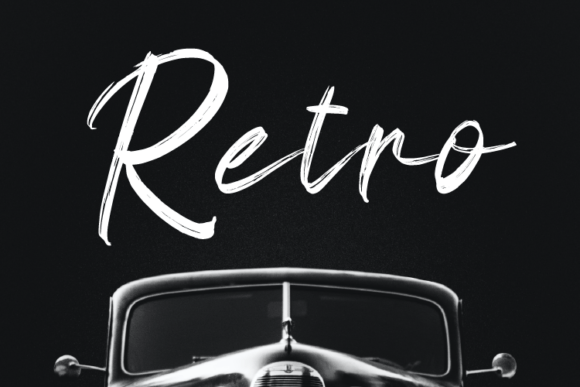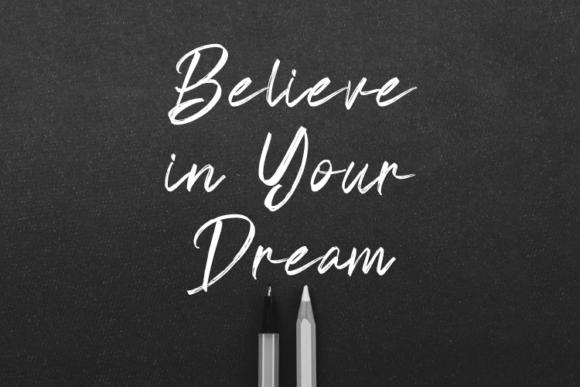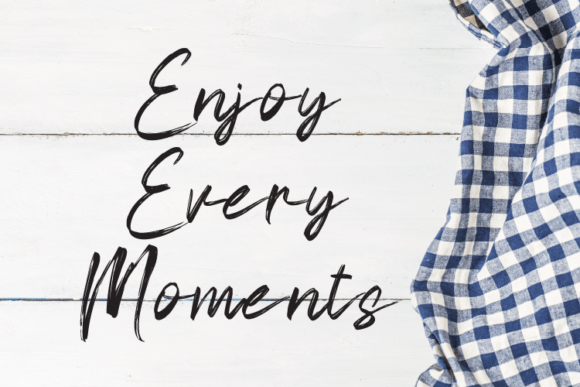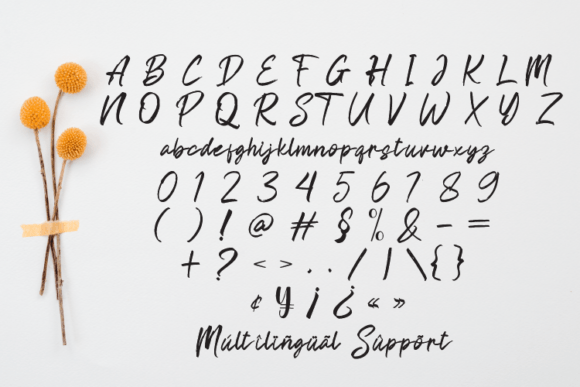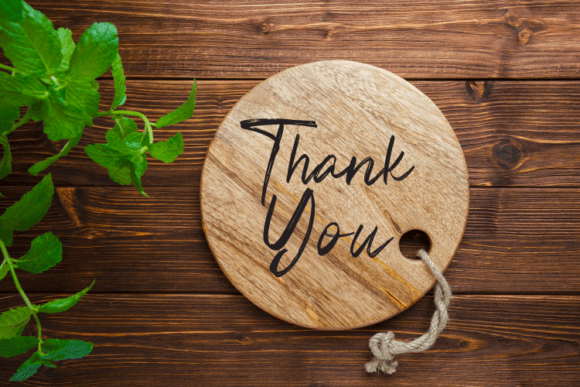
Introducing Brush Shine Font: Elevate Your Designs with a Personal Touch
In the world of design, fonts play a crucial role in conveying the message and aesthetic of a project. For crafters, designers, and artists, finding the perfect font can be a game-changer. If you’re looking for a font that adds a personal and realistic feel to your designs, look no further than Brush Shine Font. This brush script-style font is designed to bring a touch of trendiness and authenticity to your work, making it perfect for a wide range of projects.
What is Brush Shine Font?
Brush Shine Font is a beautifully crafted brush script-style font that features the perfect amount of trendiness. Its authentic look and feel make it an ideal choice for designers and crafters who want to add a personal touch to their work. Whether you’re creating invitations, greeting cards, posters, or social media graphics, Brush Shine Font is sure to make your designs come to life.
Key Features of Brush Shine Font
So, what sets Brush Shine Font apart from other fonts? Here are some of its key features:
- PUA Encoded: Brush Shine Font is PUA (Private Use Area) encoded, which means you can access all of the glyphs and special characters. This makes it easy to use and customize the font to suit your needs.
- Authentic Look: The font features an authentic brush script-style look that adds a personal and realistic feel to your designs.
- Trendiness: Brush Shine Font has the perfect amount of trendiness, making it perfect for modern designs and projects.
- Versatility: The font is versatile and can be used for a wide range of projects, from invitations and greeting cards to posters and social media graphics.
Benefits of Using Brush Shine Font
So, why should you choose Brush Shine Font for your designs? Here are some of the benefits of using this amazing font:
- Adds a Personal Touch: Brush Shine Font adds a personal and realistic feel to your designs, making them stand out from the crowd.
Who Can Benefit from Brush Shine Font?
Brush Shine Font is perfect for a wide range of designers and crafters, including:
- Graphic Designers: Graphic designers can use Brush Shine Font to create stunning posters, social media graphics, and other visual elements.
- Crafters: Crafters can use the font to create beautiful invitations, greeting cards, and other paper crafts.
- Artists: Artists can use Brush Shine Font to add a personal touch to their artwork, making it more unique and eye-catching.
Tips for Using Brush Shine Font
Here are some tips for using Brush Shine Font to get the most out of this amazing font:
- Mix and Match: Mix and match Brush Shine Font with other fonts to create a unique and eye-catching design.
In conclusion, Brush Shine Font is a must-have font for designers and crafters who want to add a personal and realistic feel to their designs. With its authentic brush script-style look, trendiness, and versatility, this font is perfect for a wide range of projects. Whether you’re a graphic designer, crafter, or artist, Brush Shine Font is sure to elevate your designs and make them stand out from the crowd.